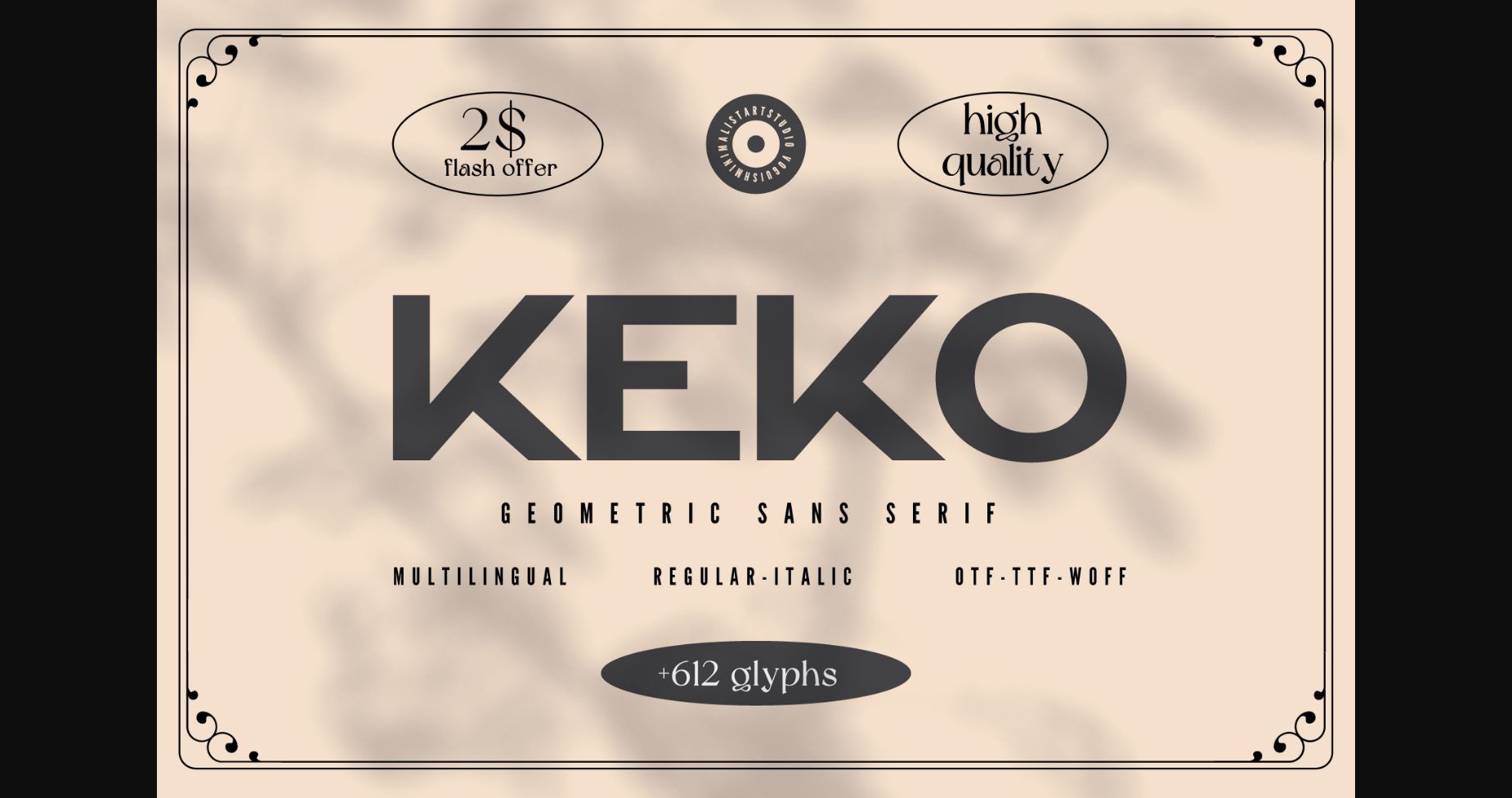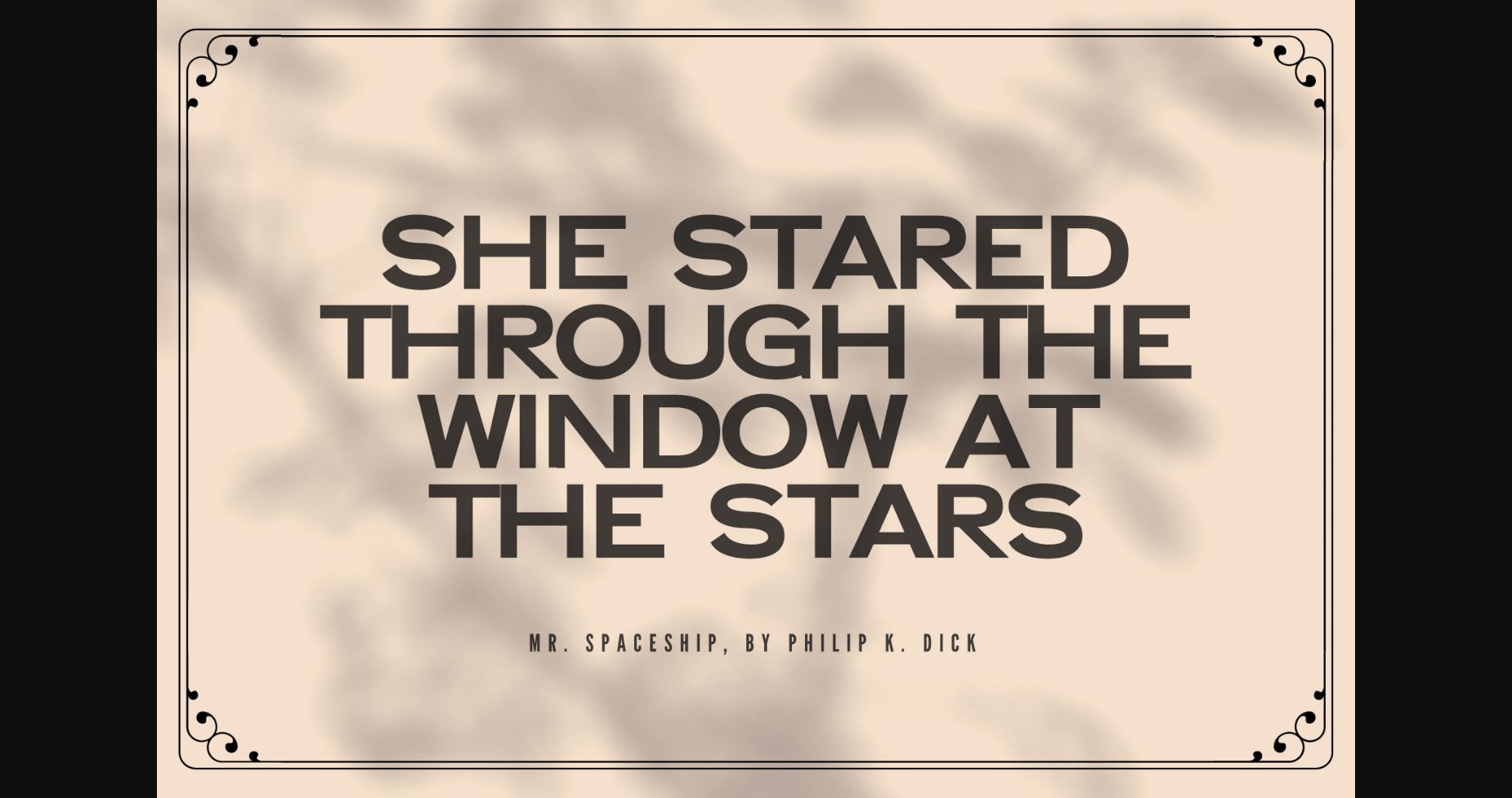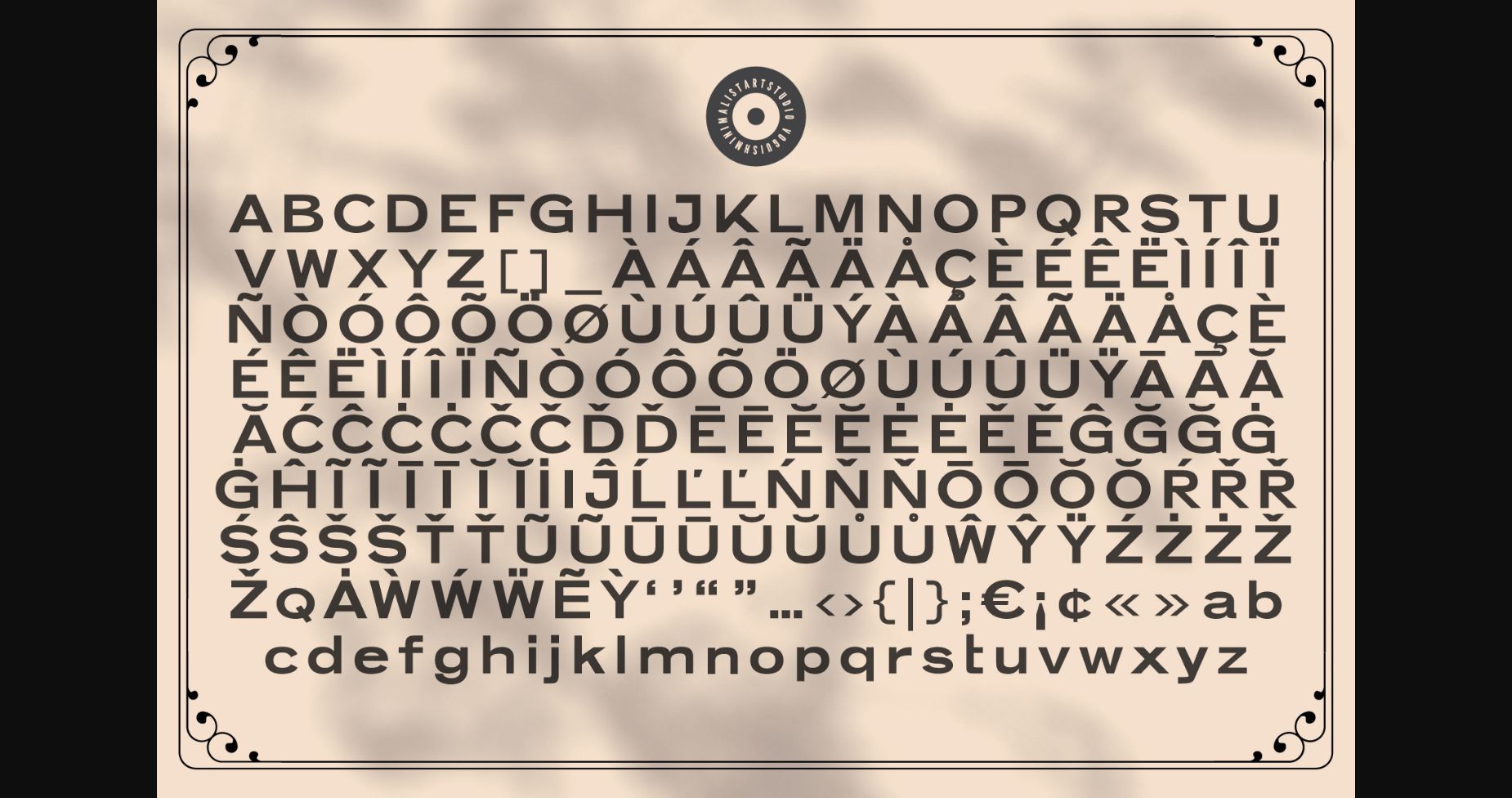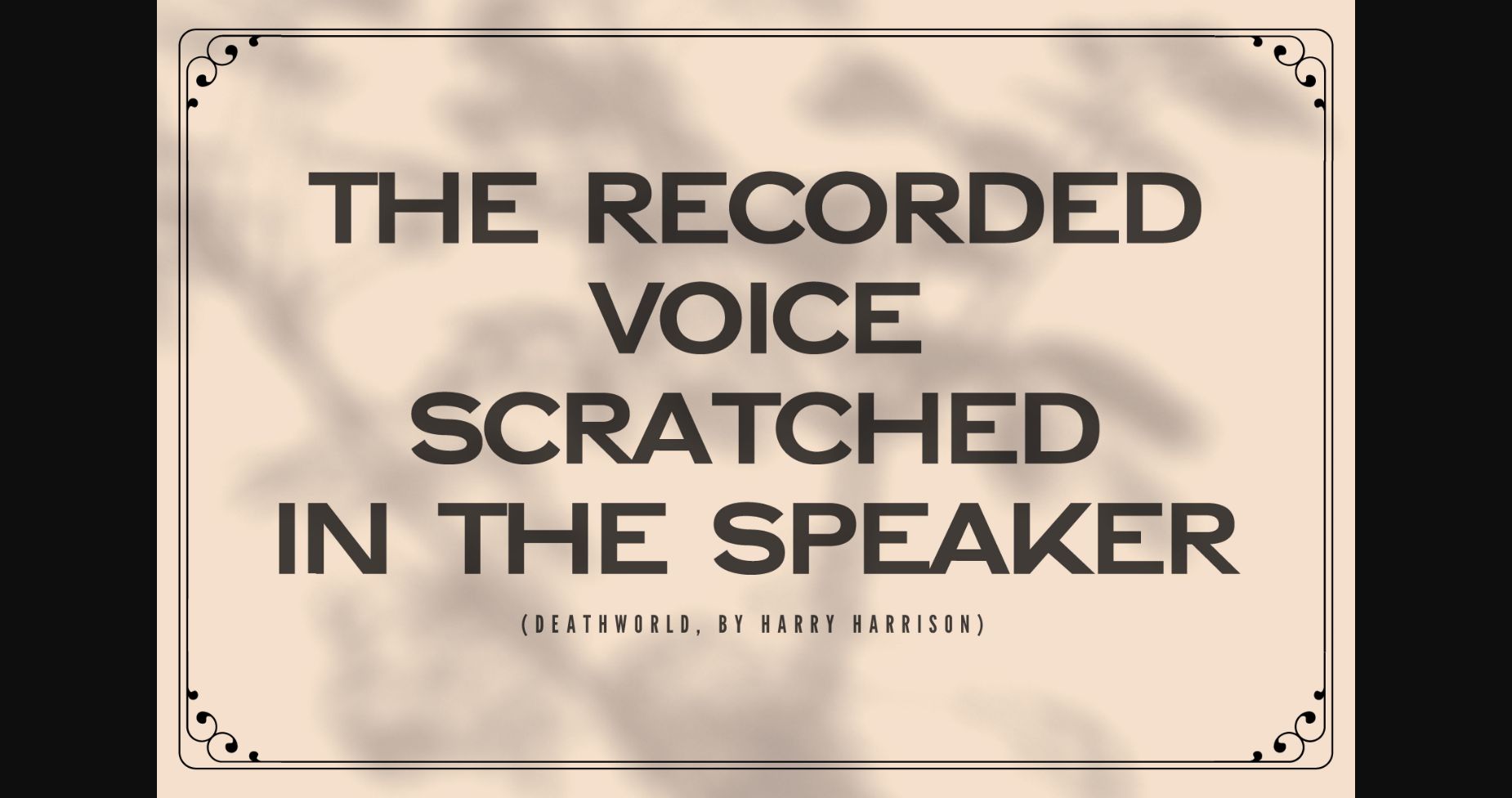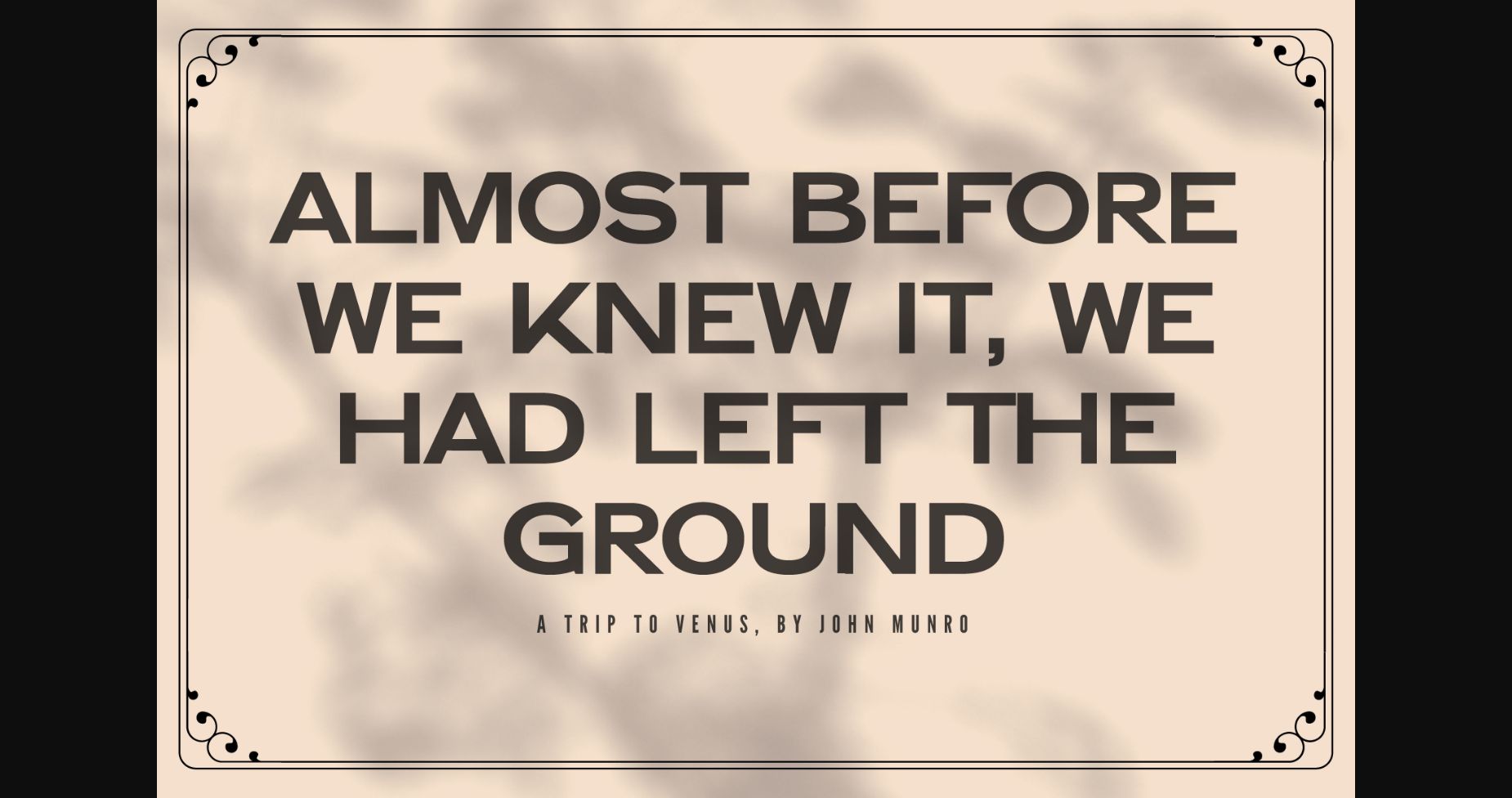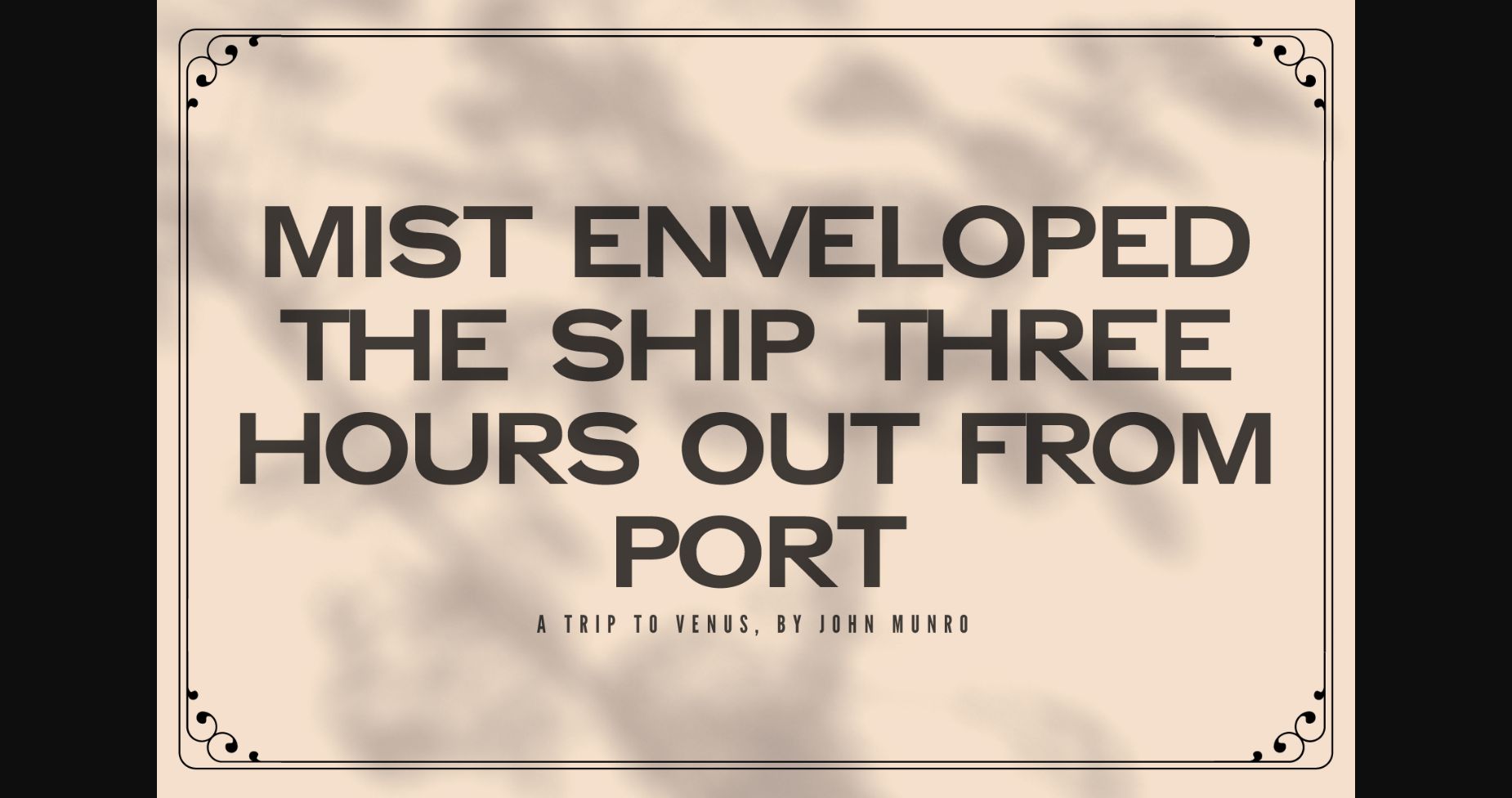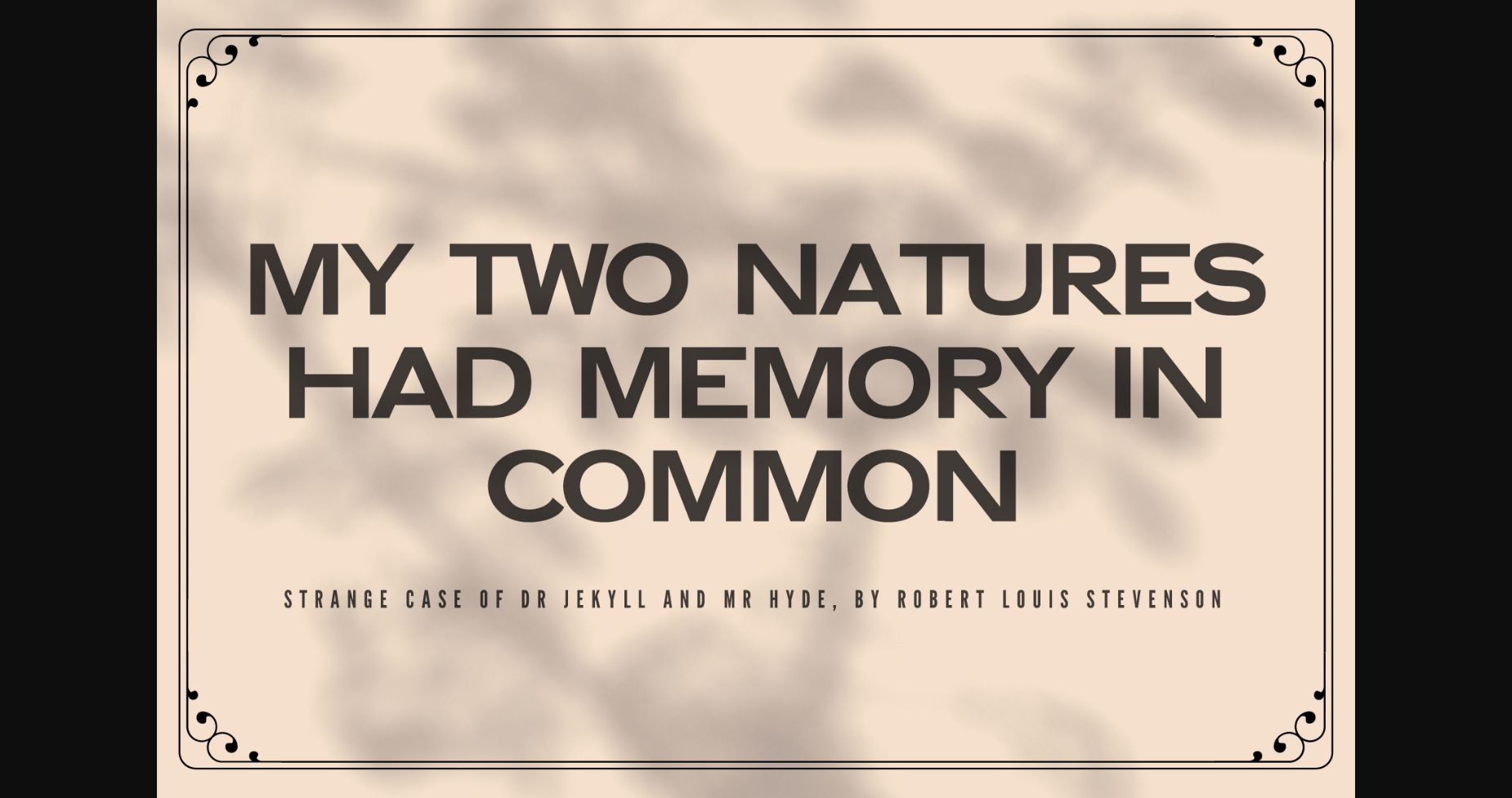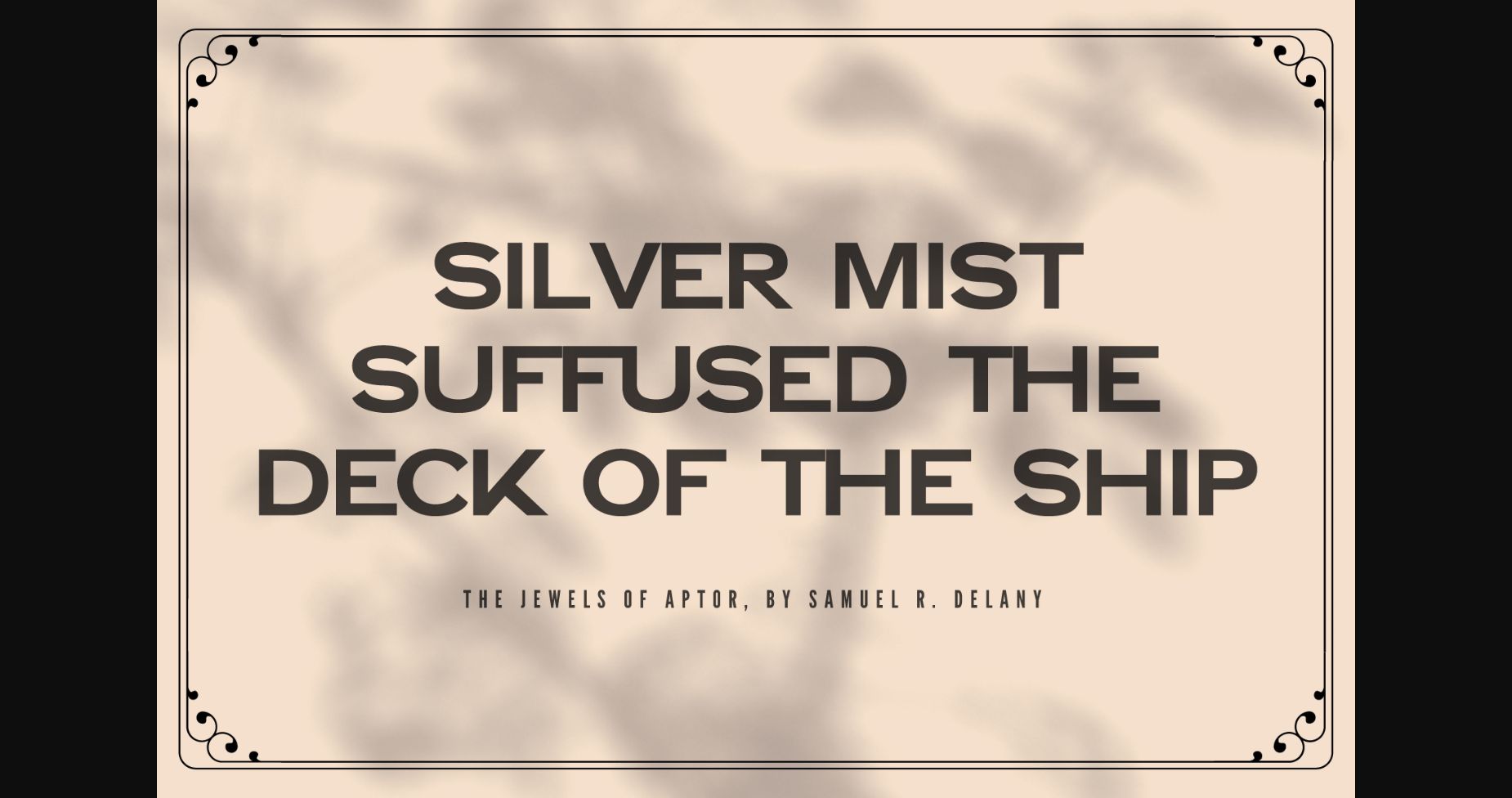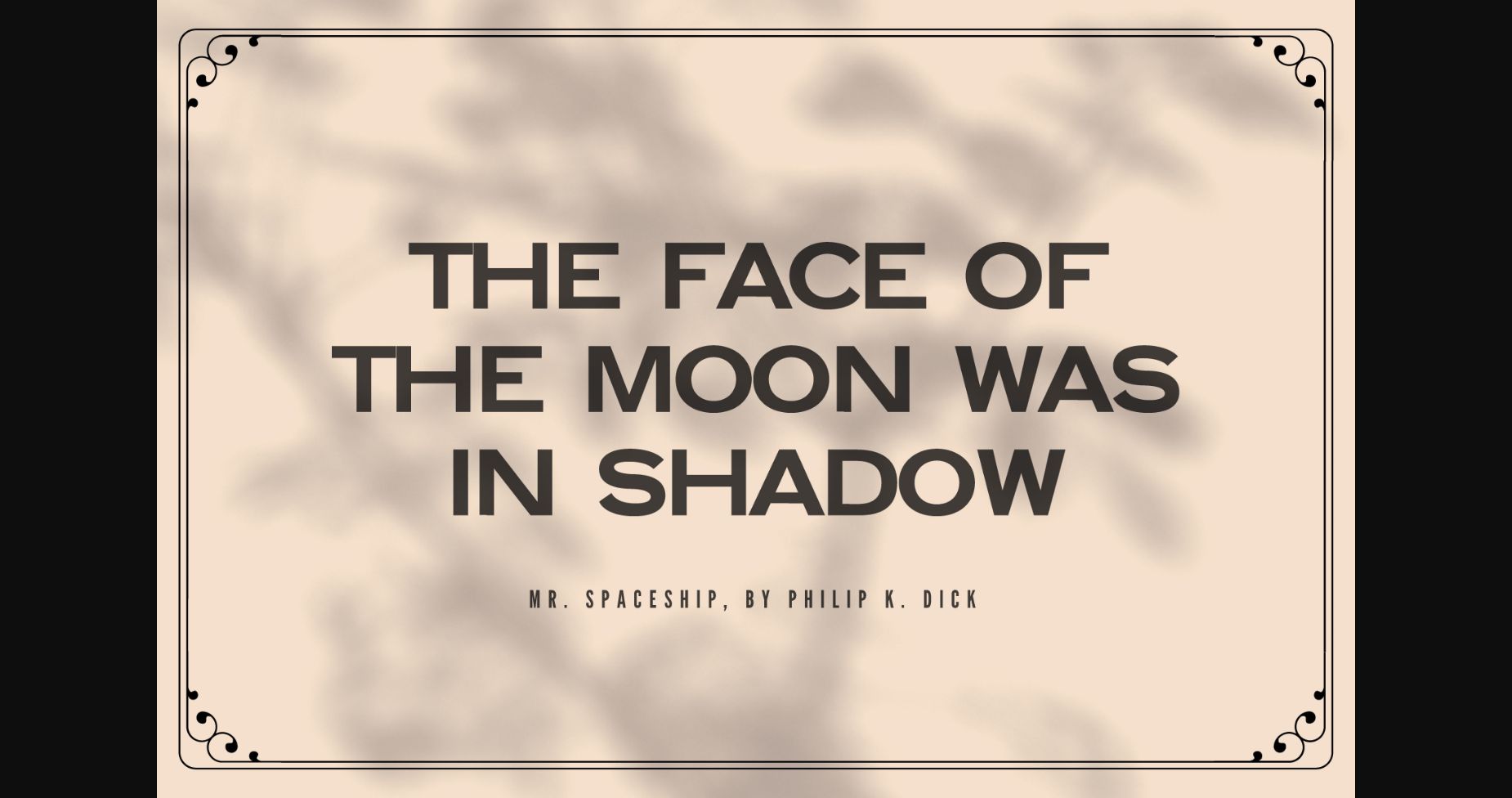
Keko Font
About Keko Font
Introducing Keko, the chic and sophisticated sans serif font that will elevate any project with its minimalist design. With both italic and regular weights, Keko contains a full range of glyphs, ensuring seamless integration into any language or style. Its clean lines and elegant curves make it perfect for everything from logos to headlines, while its understated design adds a touch of refinement to any project. Whether you’re looking to create a sleek website or a stunning print piece, Keko is the perfect font for anyone seeking a modern, sophisticated look.